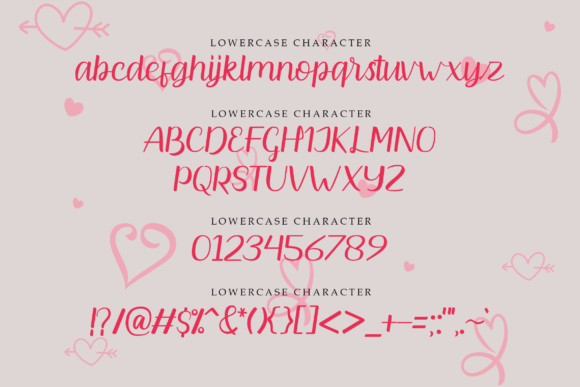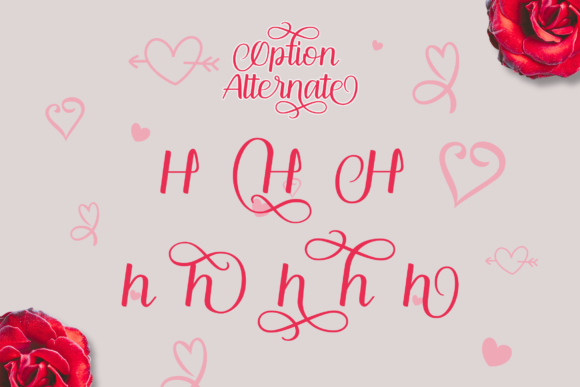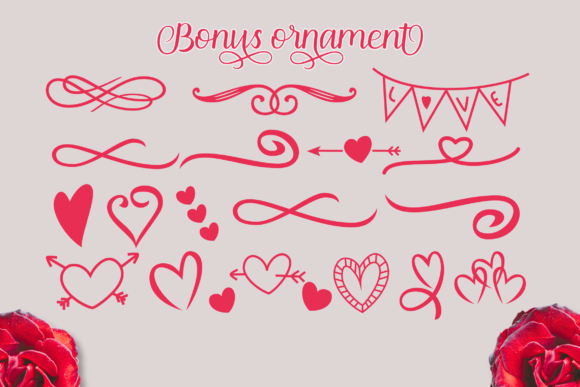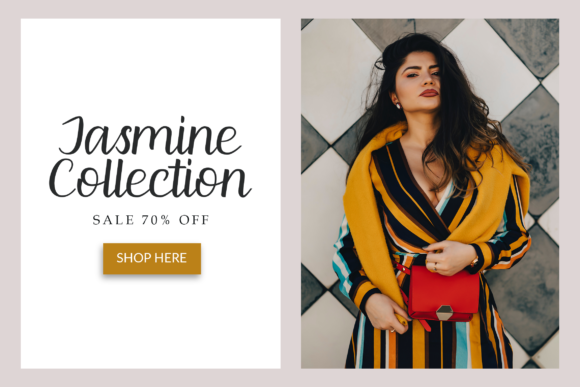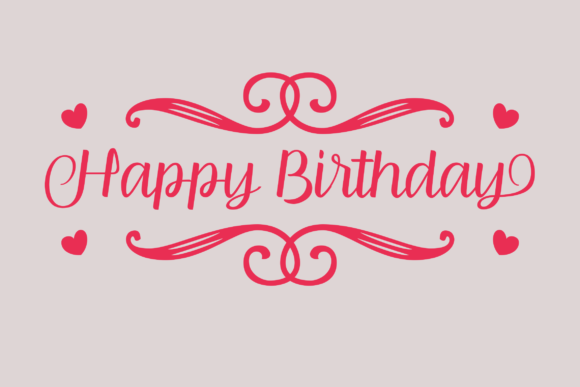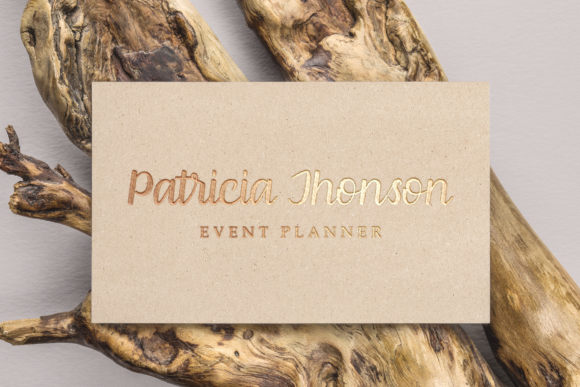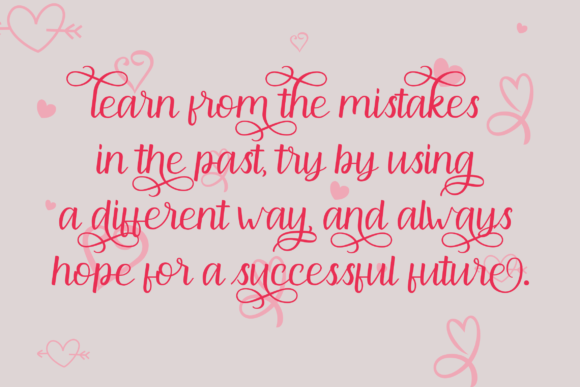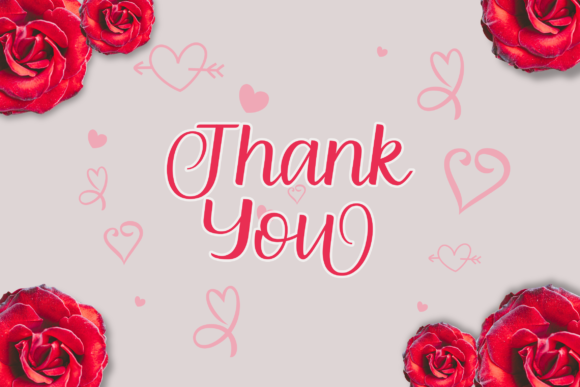
Angela Heart Font
About Angela Heart Font
Angela Heart is an incredibly beautiful script that will work well in a wide variety of design projects. Its stunning swashes will draw anyone’s attention!